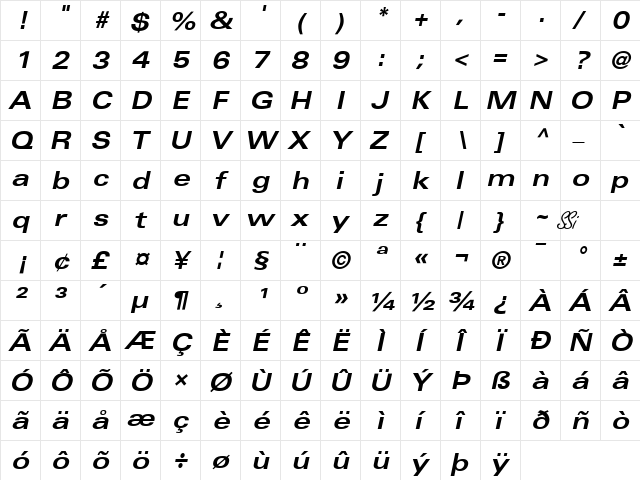
Nova Expanded SSi Bold Expanded Italic
Design Context for Nova Expanded SSi Typeface
Nova Expanded SSi offers clean, dependable letterforms without strong stylistic allegiance, making it a practical choice for designers who need flexibility. The slanted form adds forward momentum and visual energy. Its bold stroke weight gives it real presence on the page.
Pro Tip: Use Nova Expanded SSi for emphasis, pull quotes, and subheadings where its slanted energy can add rhythm to the layout.